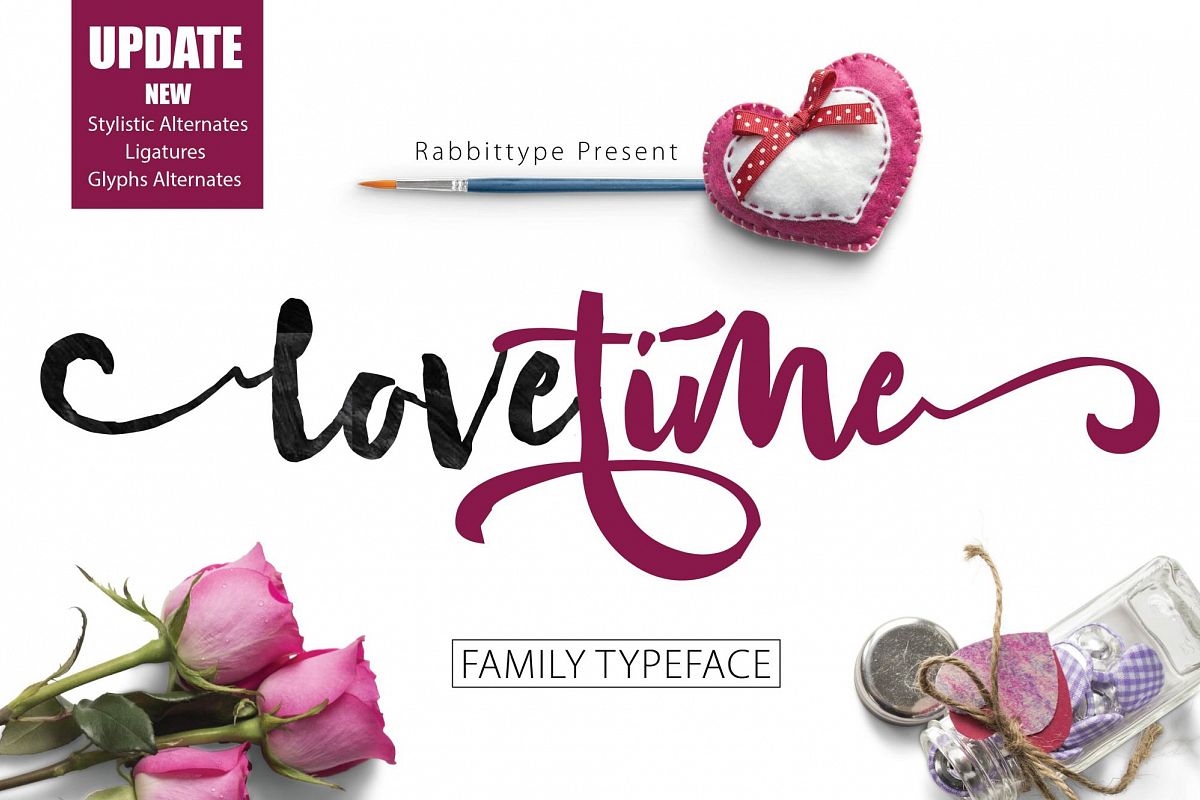
LOVETIME Script family
Love time.
Lovetime Clean.
hi Friends...... Welcome LOVETIME Script Family
LOVETIME Script is a beautiful Script, It suitable for wedding invitation, greeting cards, T-Shirt, Logo or any design that you create.comes with a complete set of standard characters, Alternates, Punctuation & international glyphs
LOVETIME Script There are 3 family
LOVETIME (regular)
LOVETIME ALTERNATES GLYPHS
LOVETIME CLEAN GLYPHS
UPPERCASE
lowercase
numeral
punctuation
international glyphs
Ligatures
Alternates Glyphs
Stylistic Alternates